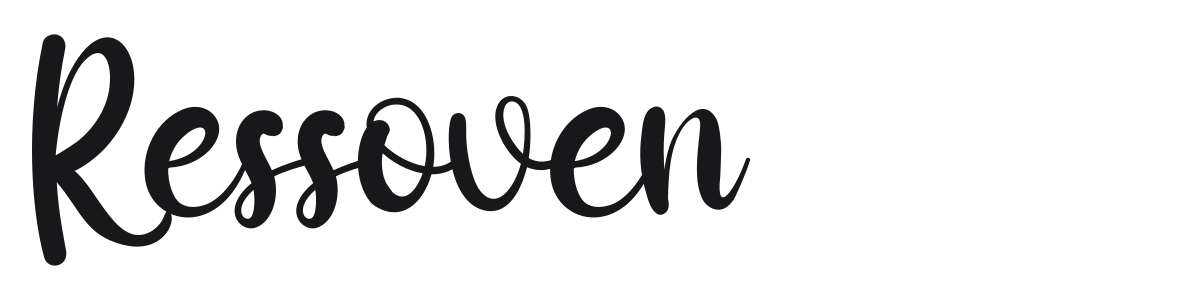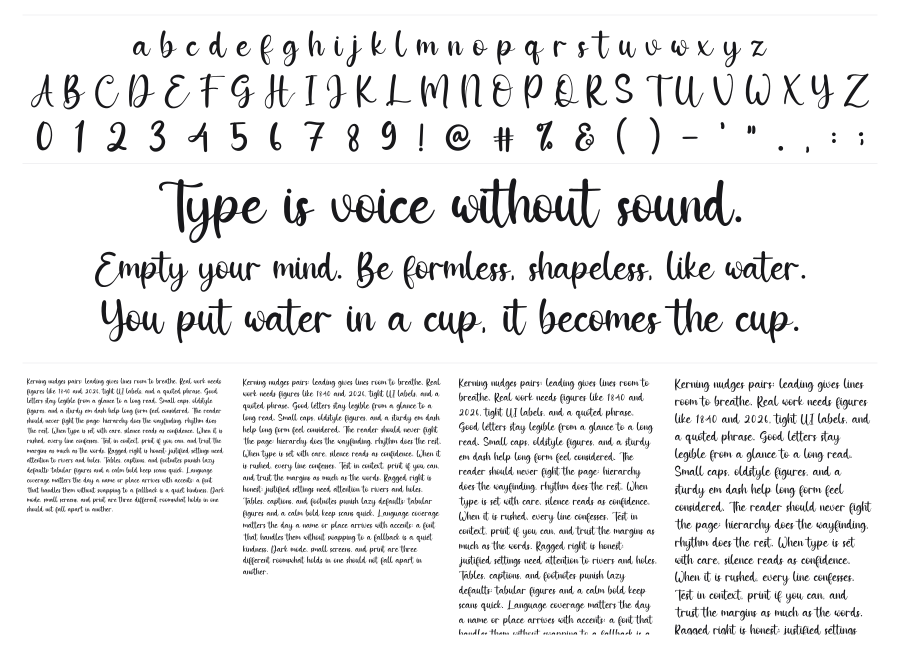
Ressoven
Ressoven is a flowing casual script with a bouncy rhythm and generous looped ascenders that give it genuine handwritten character. The moderate stroke contrast and smooth pen-like stroke transitions keep it legible while still feeling spontaneous. It works across branding, packaging, and editorial contexts where a warm, approachable tone matters.